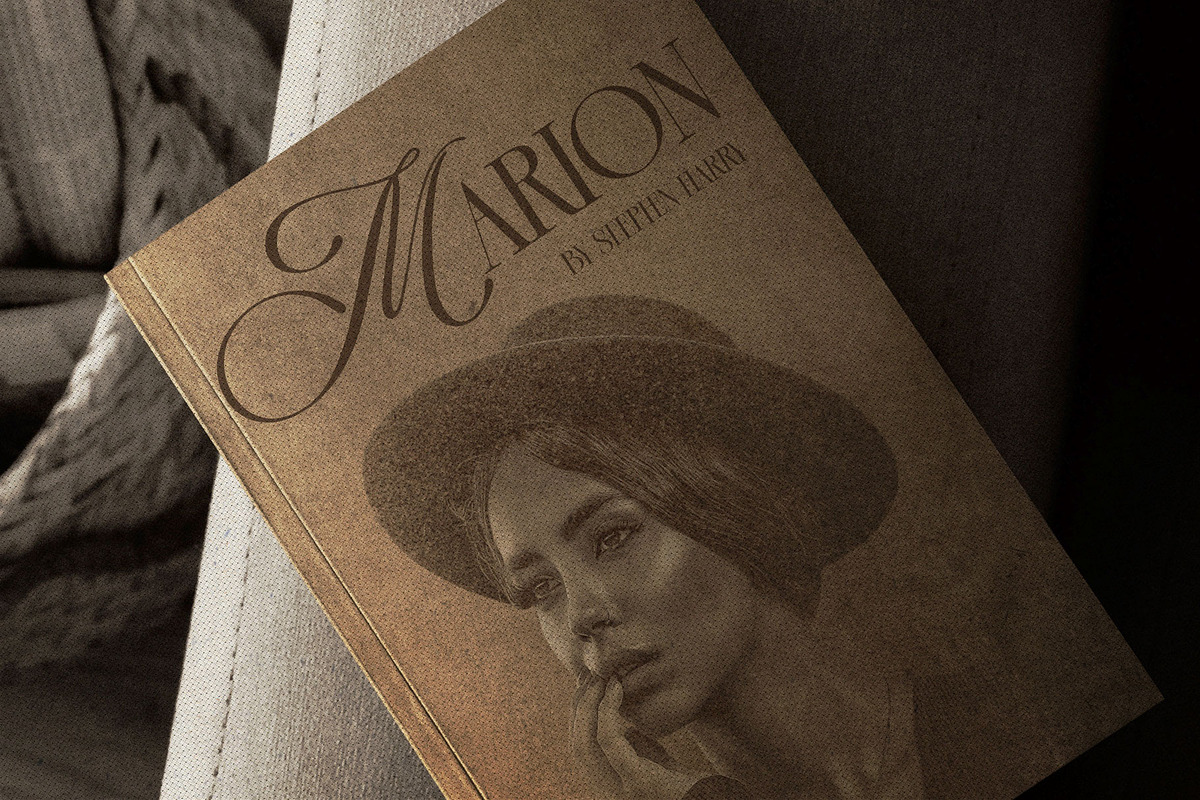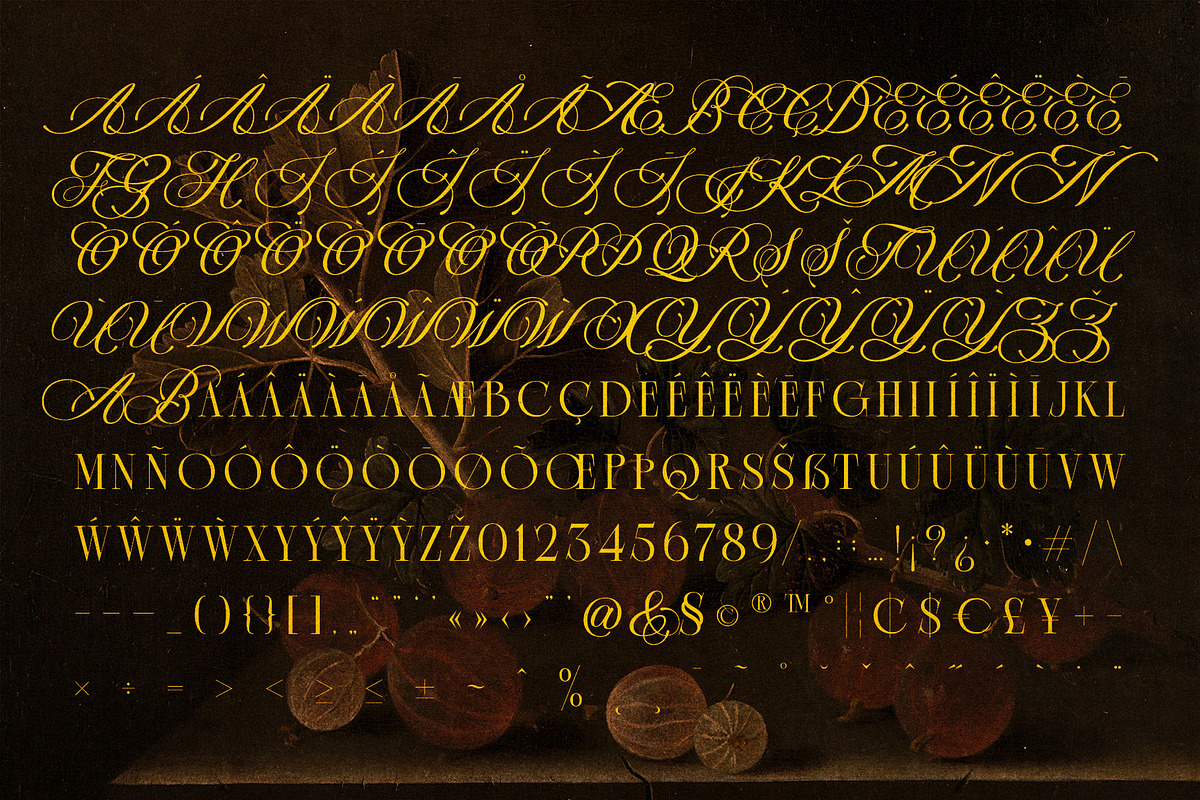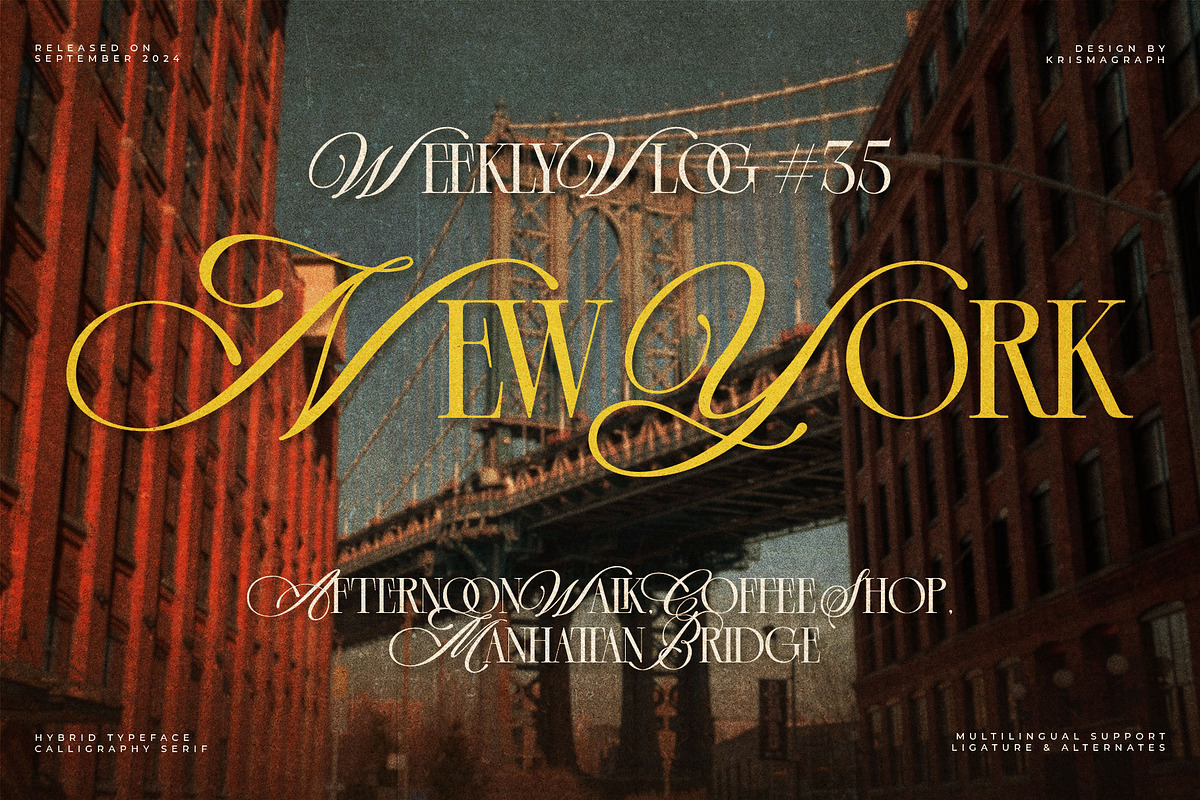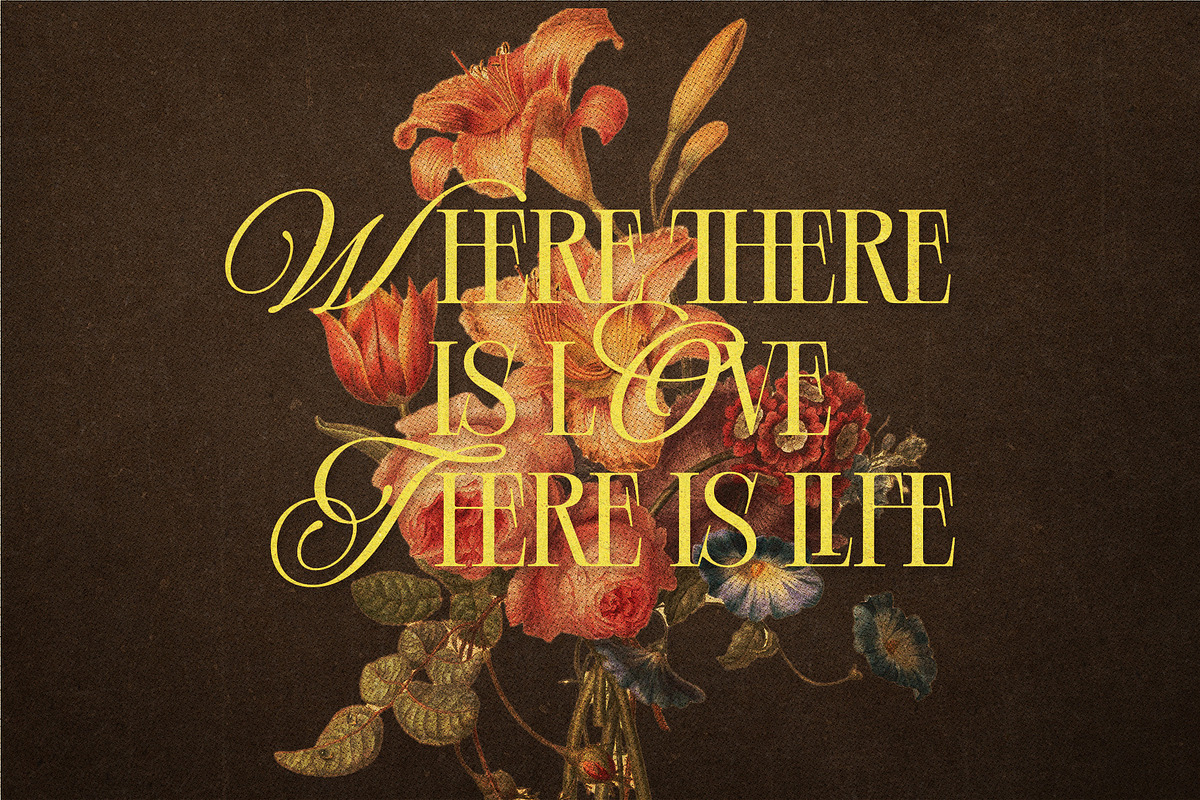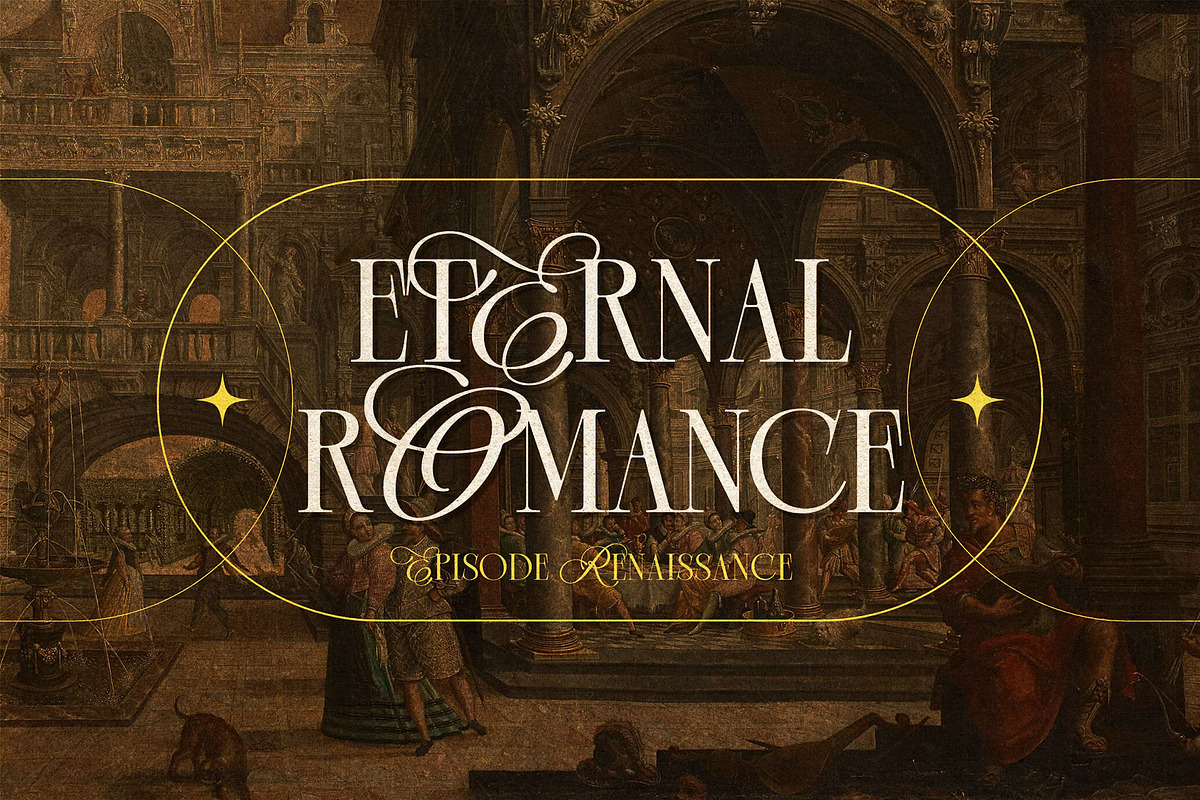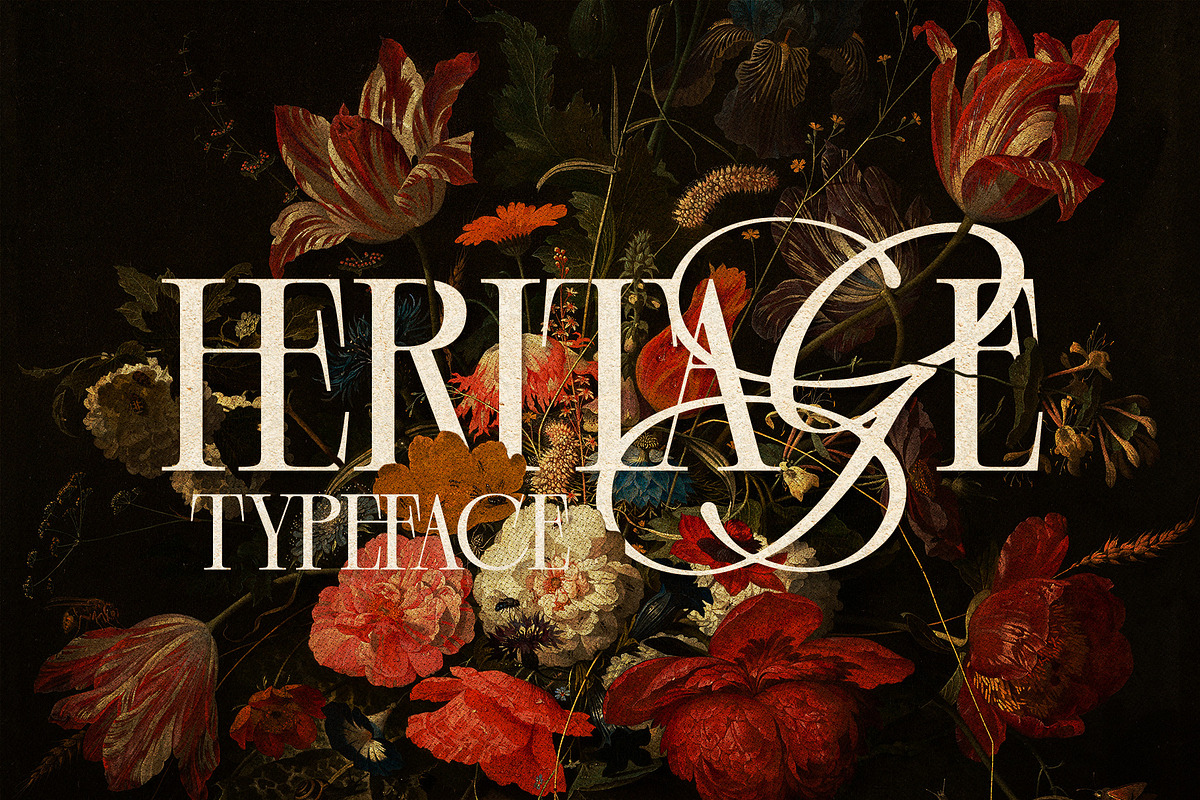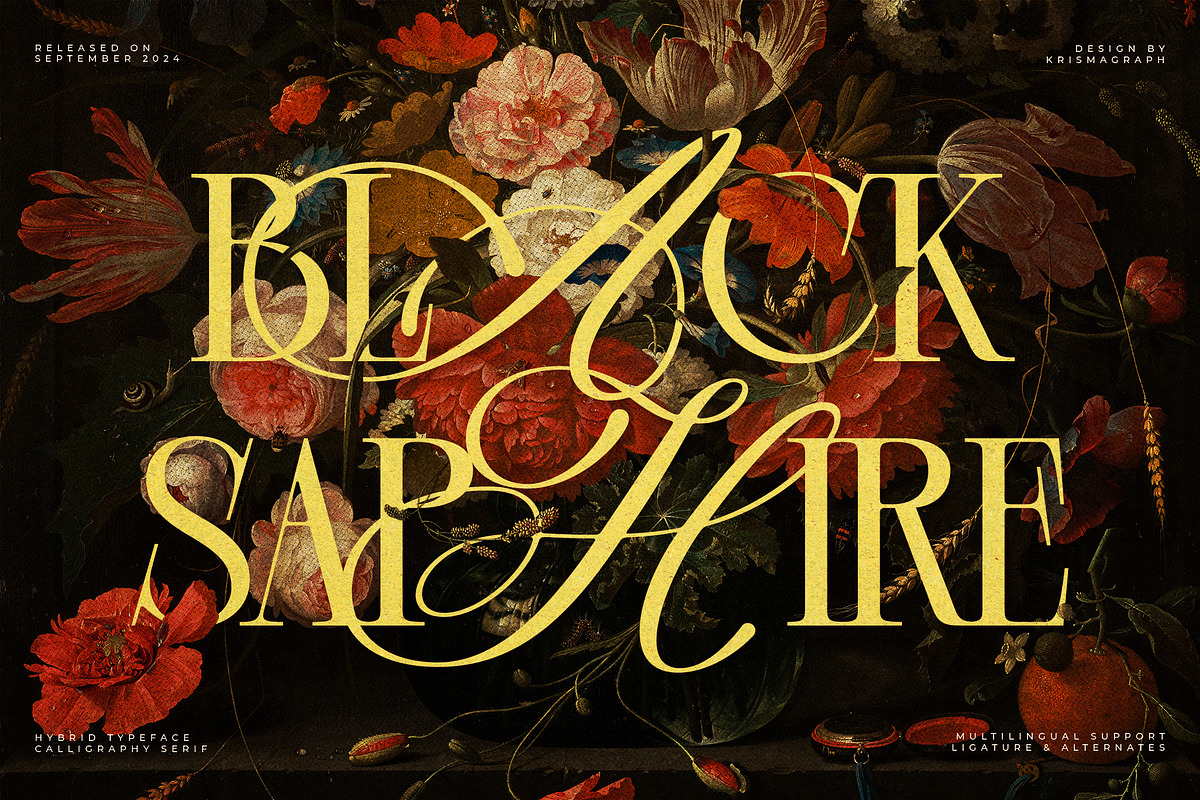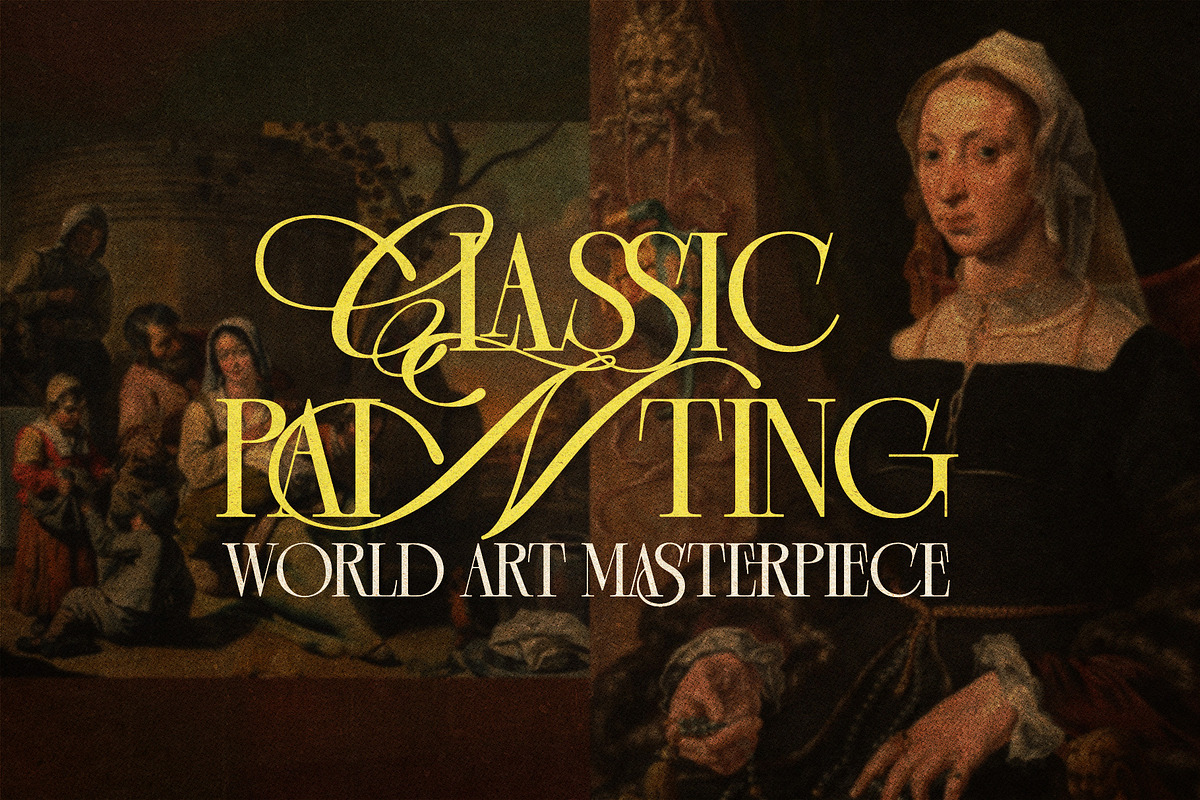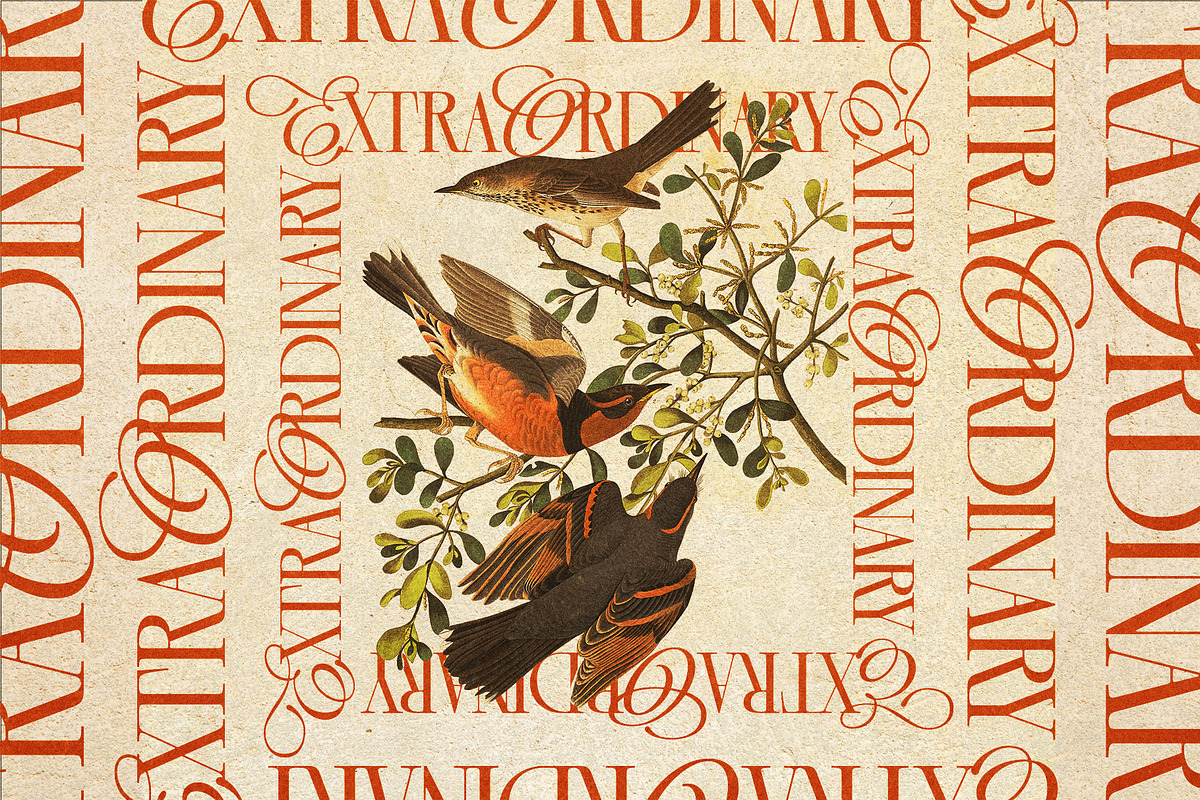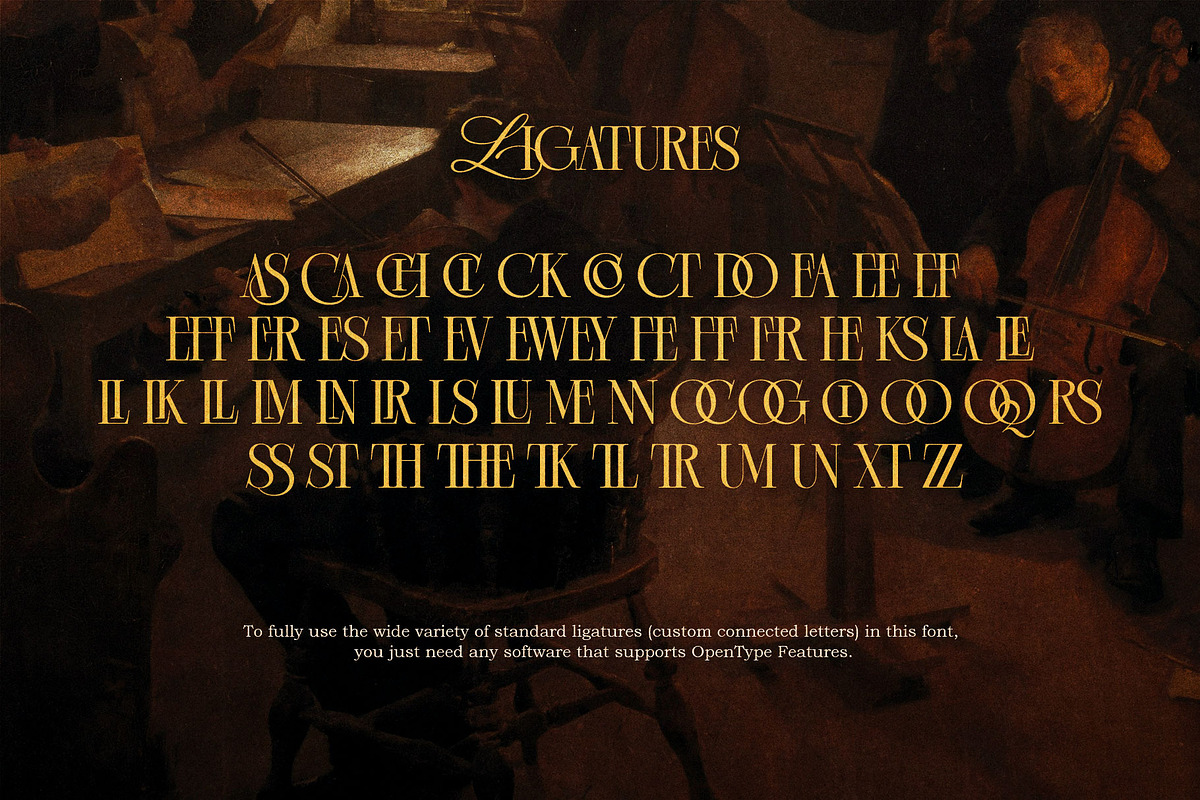
Black Saphire - Hybrid Serif
Black Saphire is a captivating blend of calligraphy and serif, radiating timeless elegance and a nostalgic charm that elevates any design. This distinctive fusion brings a layer of sophistication to every project, making it an ideal choice for branding, editorial layouts, and social media visuals. With its versatile aesthetic, Black Saphire enriches your design toolkit, offering endless creative possibilities for a refined and polished finish.